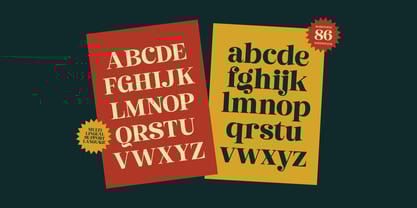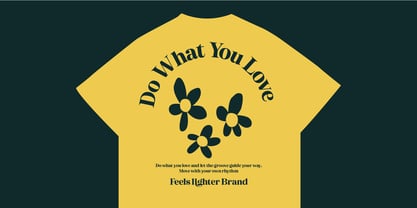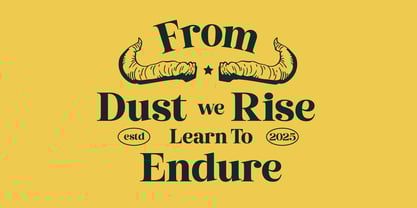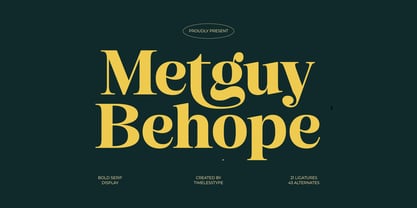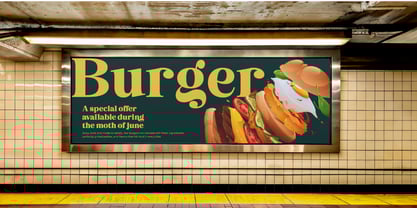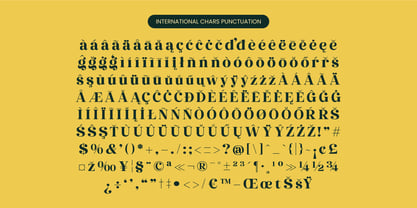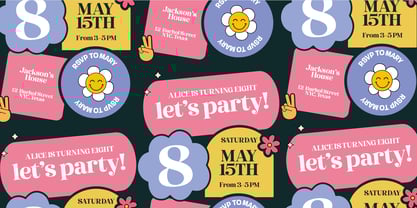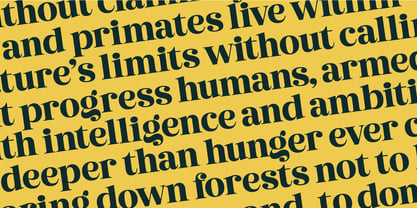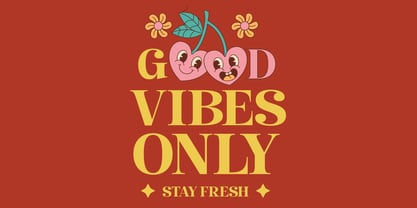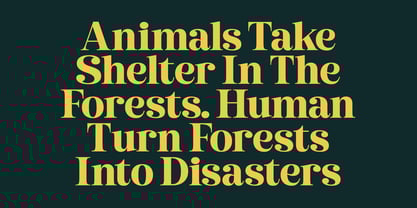
Metguy Behope
by Timelesstype Studio
The Metguy Behope Font Family was designed by Heru Utama Putra and published by Timelesstype Studio. Metguy Behope contains 2 styles and family package options.
Metguy Behope - Bold Serif Display ,Metguy Behope is a bold serif display typeface crafted with strong contrast, sculpted curves, and elegant editorial-inspired details designed to command attention in logos, headlines, and premium branding. Its confident structure is paired with smooth, expressive terminals and refined ligatures, giving each word a luxurious presence while remaining modern and highly readable. With 21 ligatures and 43 stylistic alternates, Metguy Behope offers designers the flexibility to build sophisticated visual identities, high-end packaging, magazine titles, and stylish promotional materials that demand a bold and timeless look